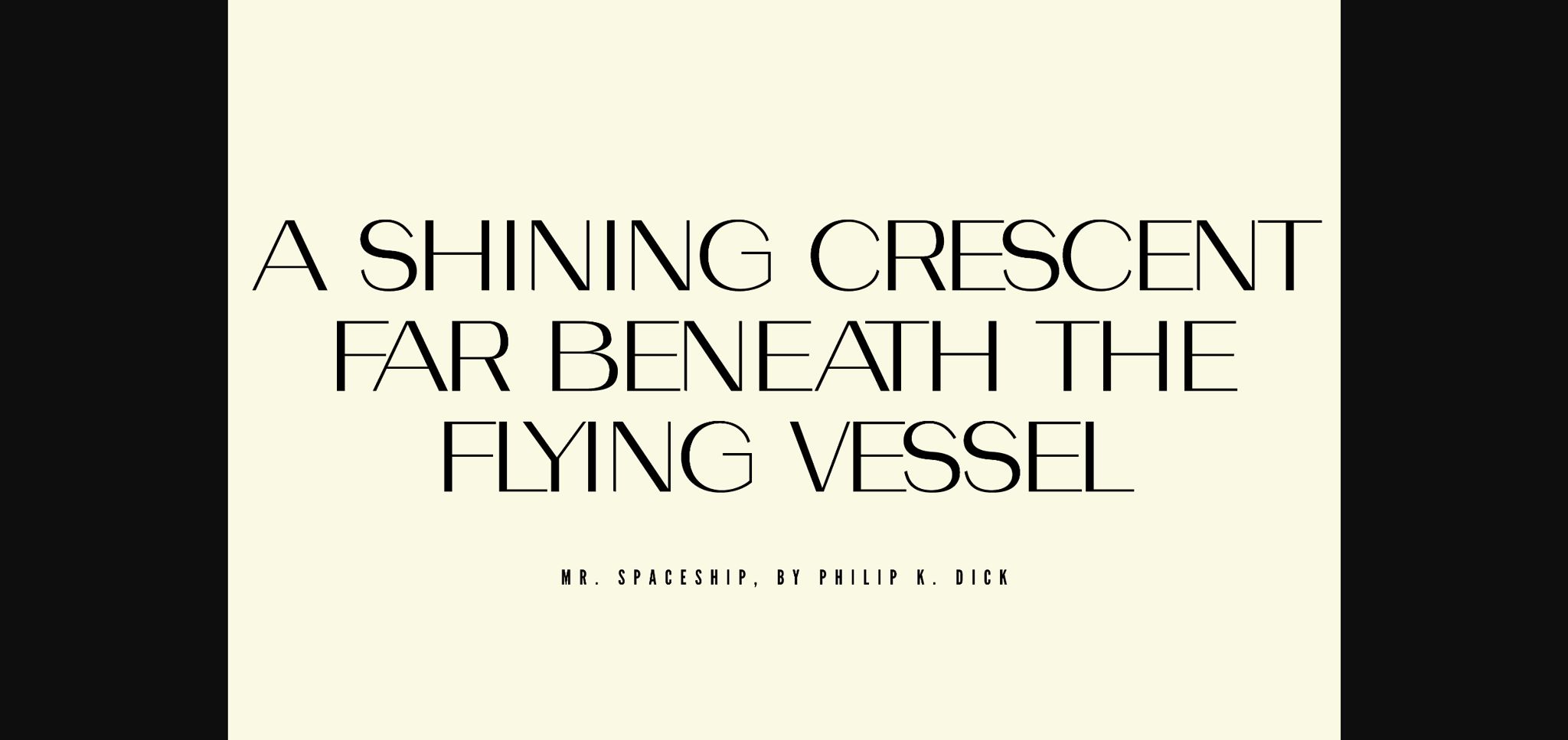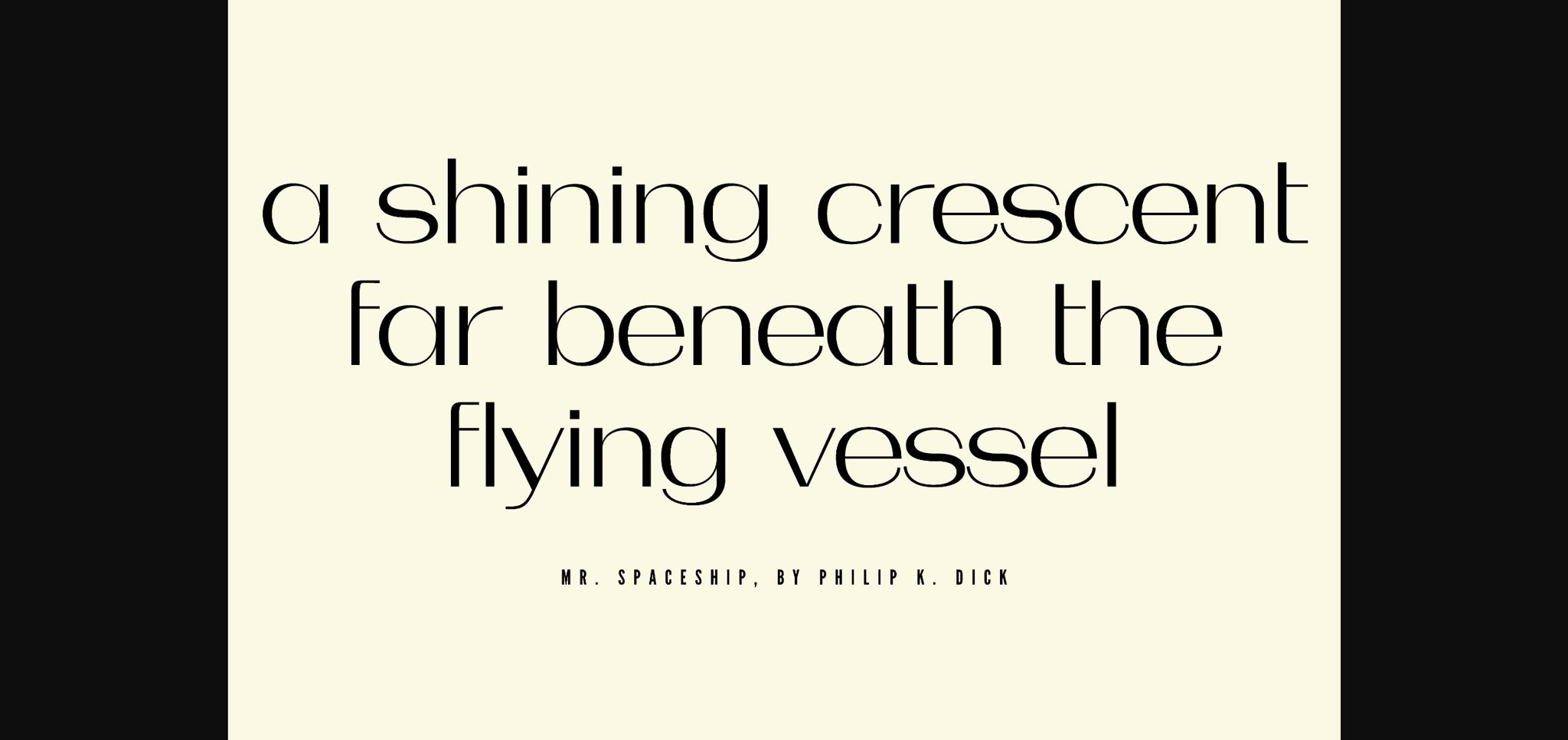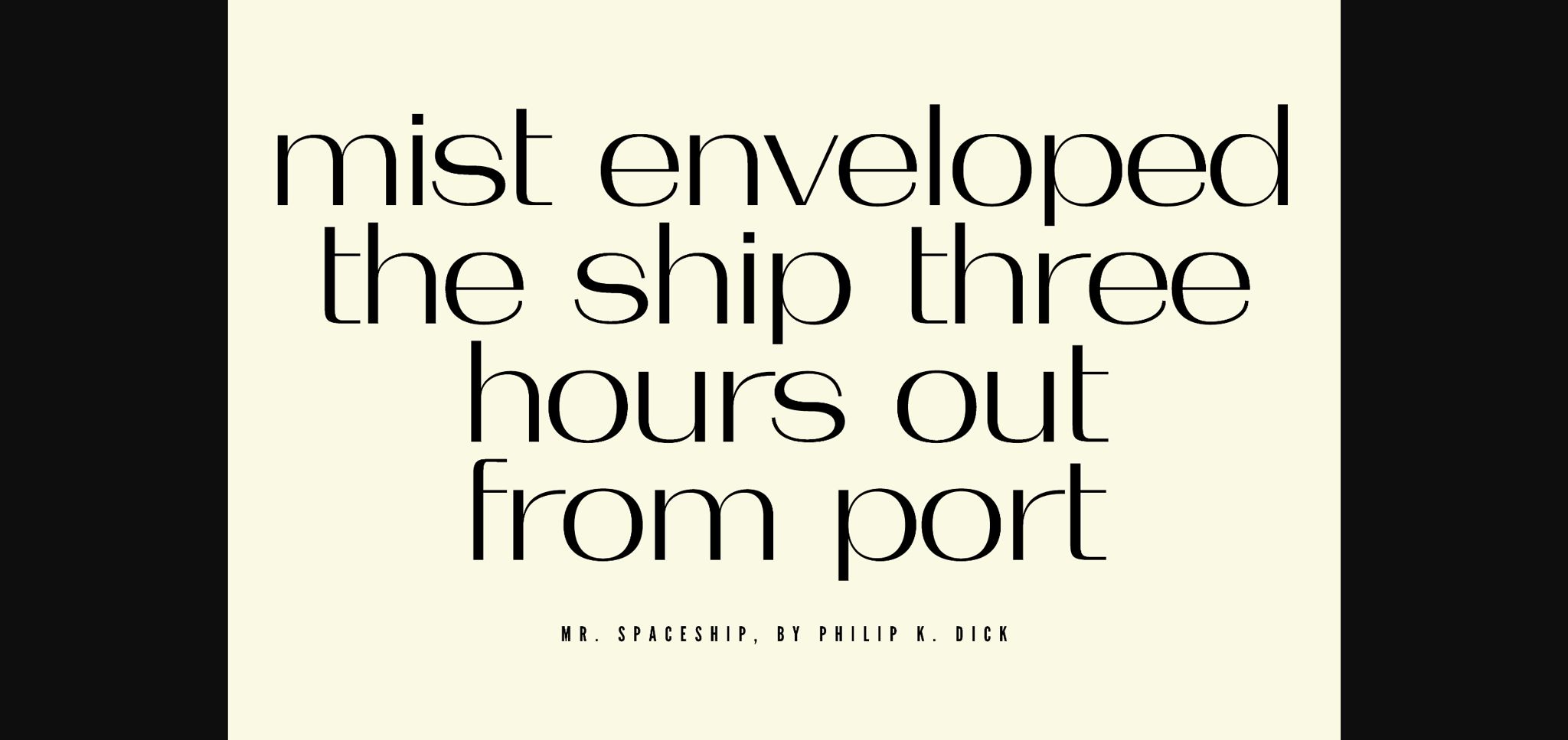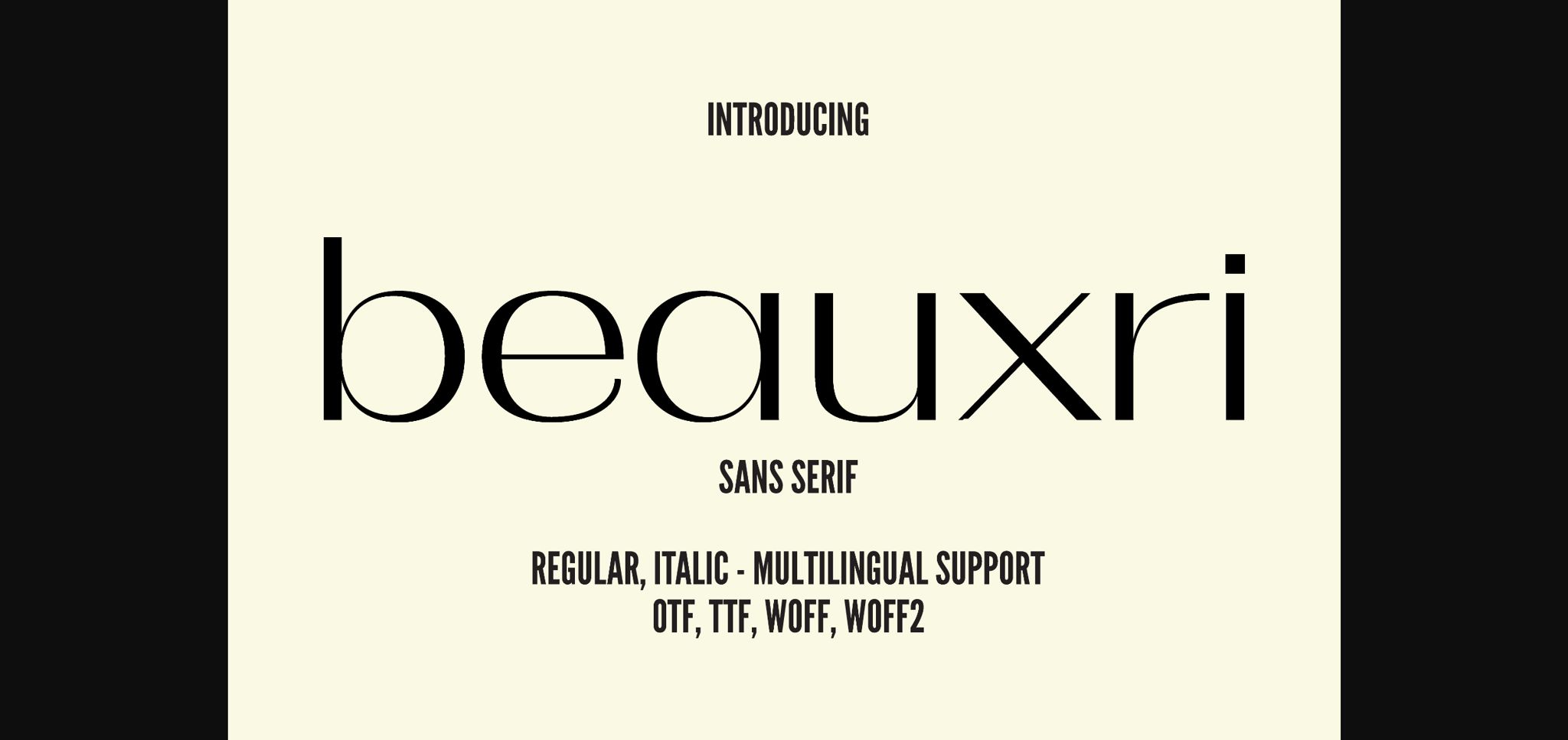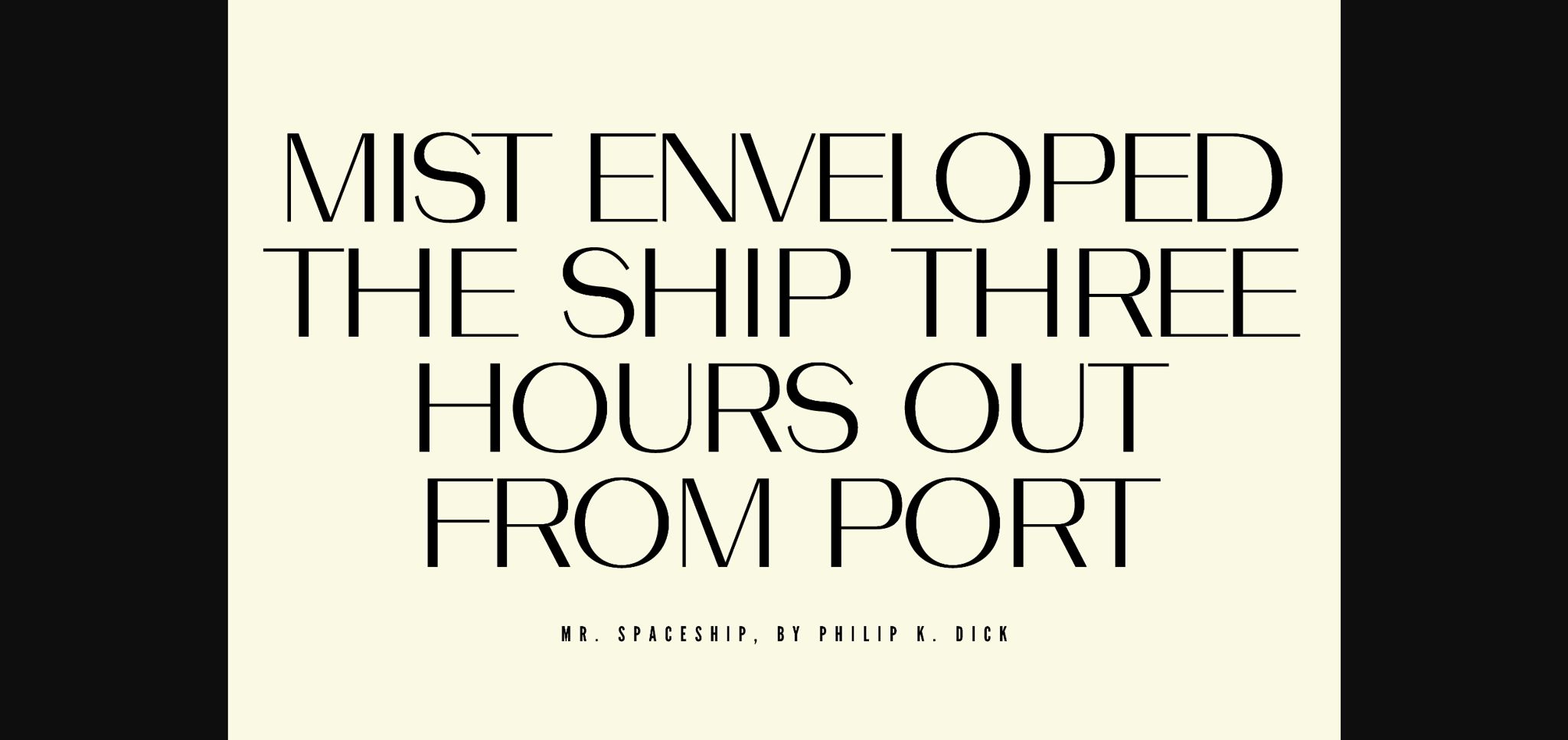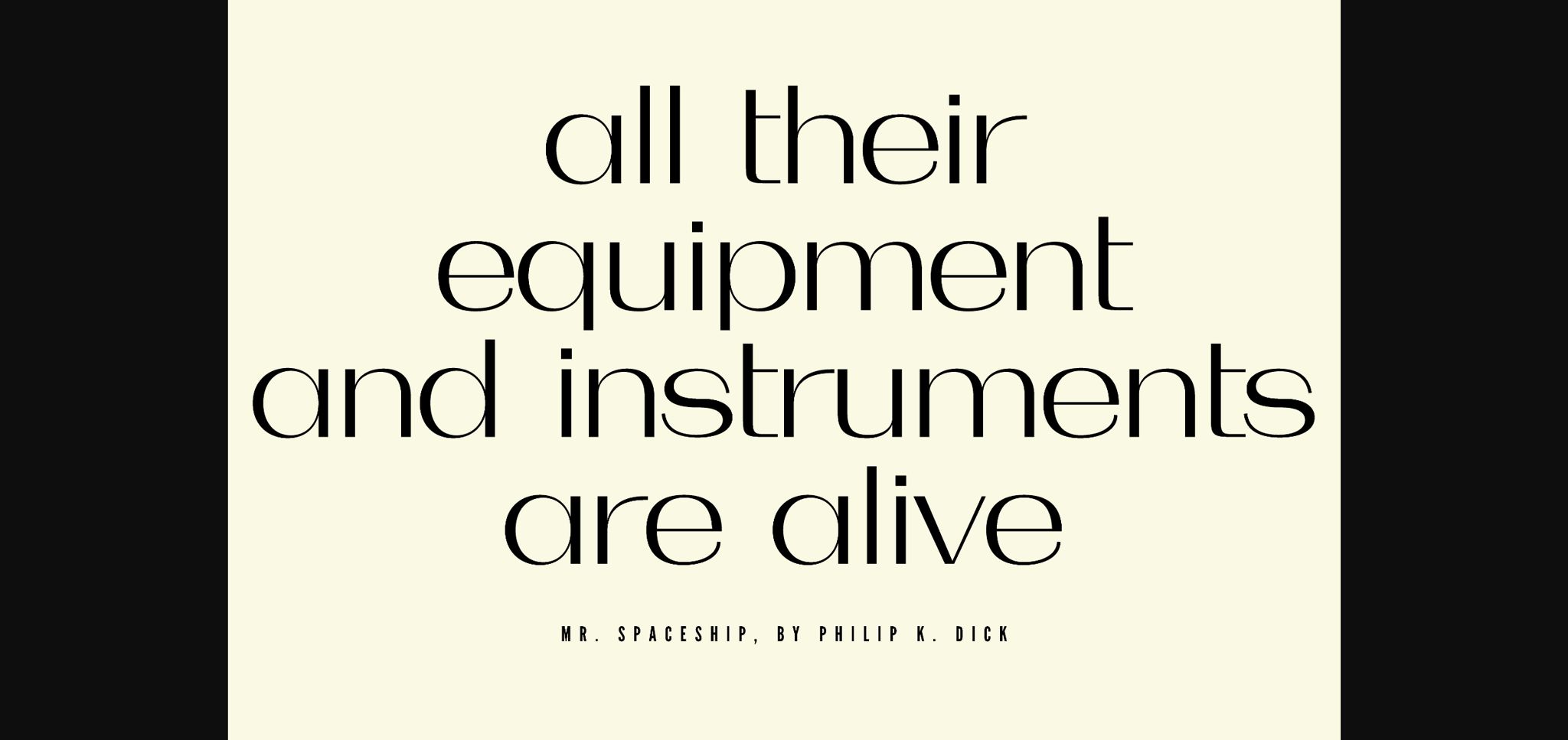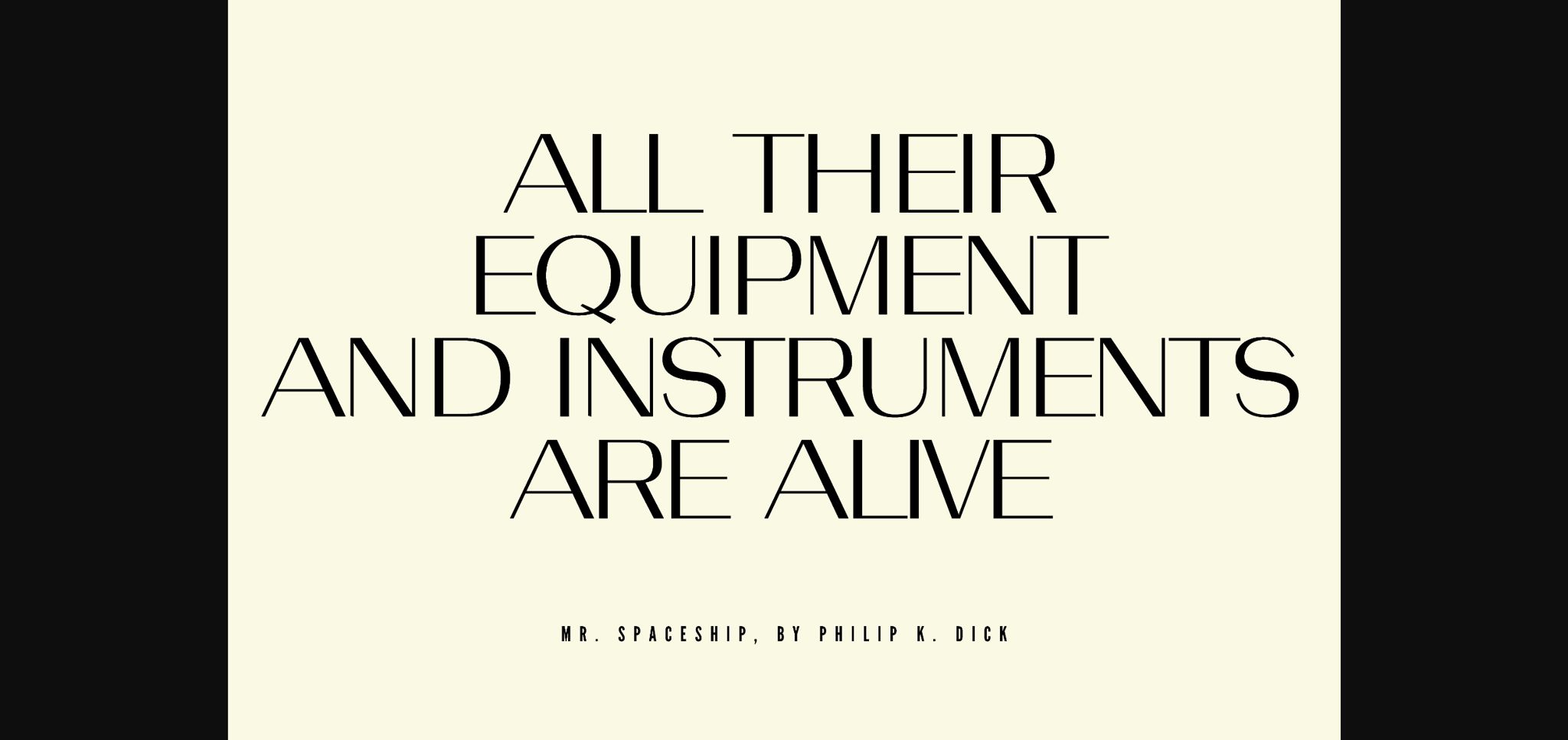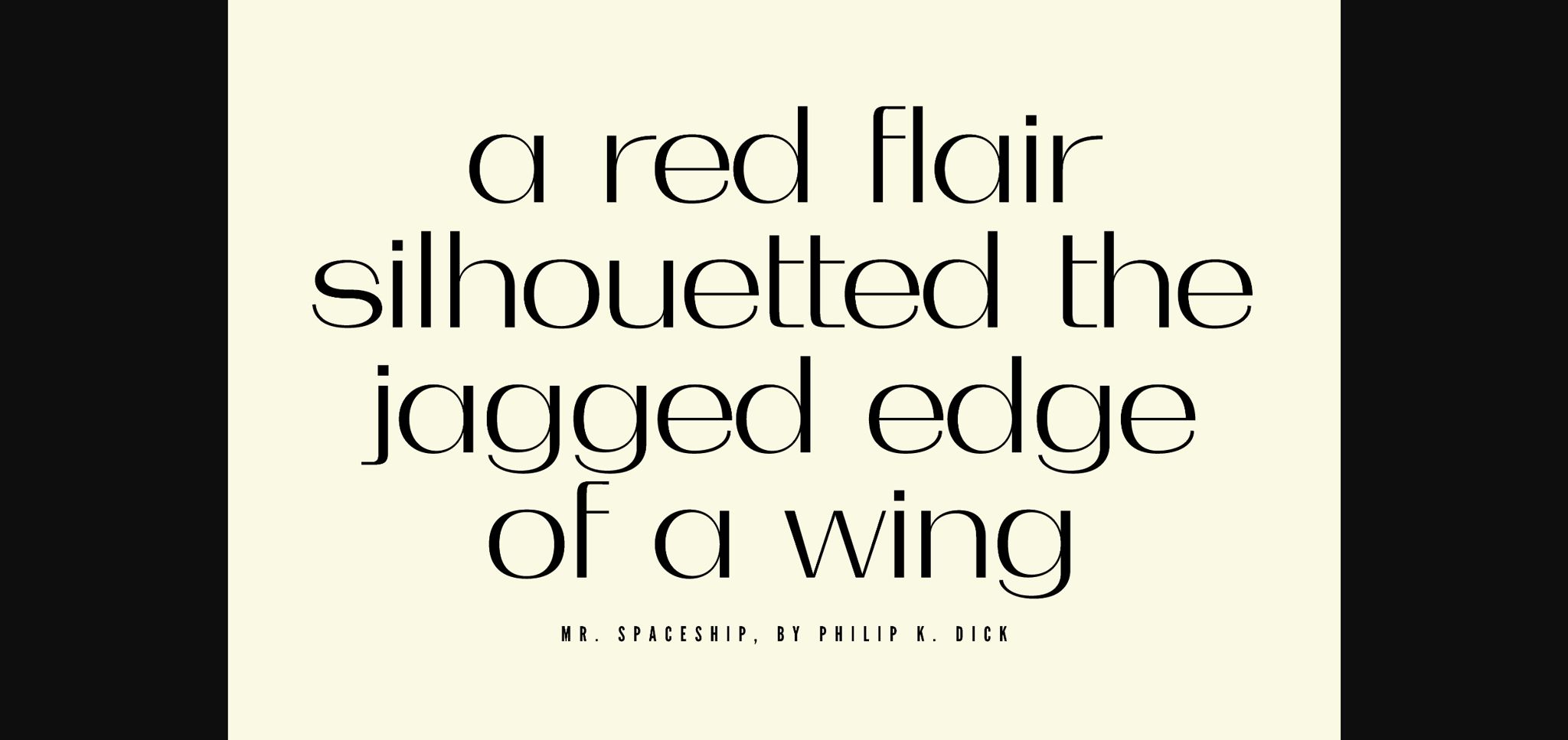
Beauxri Font
About Beauxri Font
Beauxri is a chic, elegant, and modern sans-serif typeface that combines timeless charm with contemporary aesthetics. With its clean, minimalist design and distinctive personality, Beauxri is versatile and perfect for various design projects. It exudes a sense of sophistication while maintaining a modern edge, making it suitable for logos, magazines, websites, and more. Beauxri also offers extensive language support, ensuring it can communicate your message with grace and style to a global audience. Elevate your designs with Beauxri and redefine sophistication in typography.